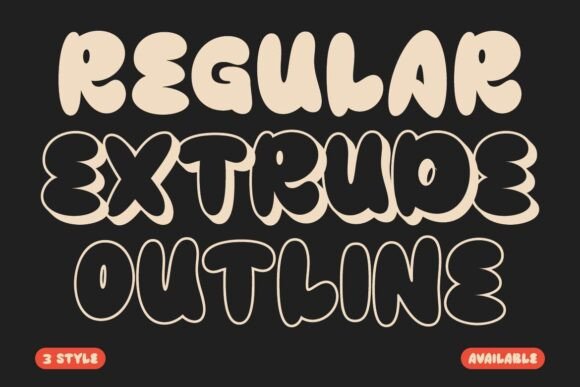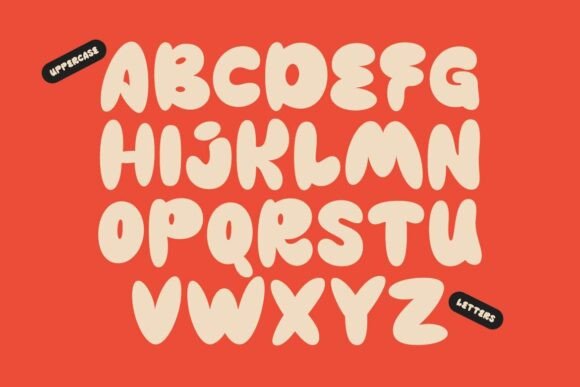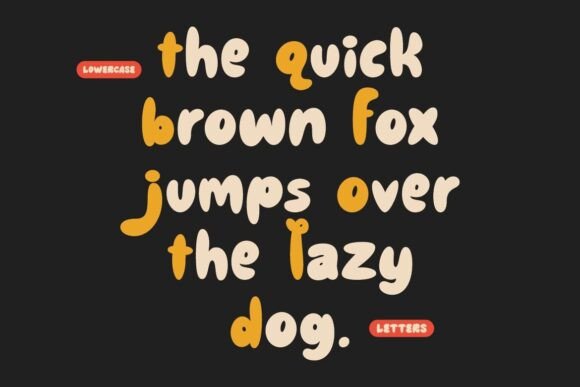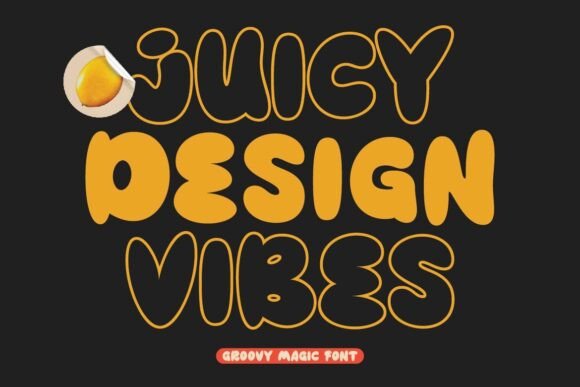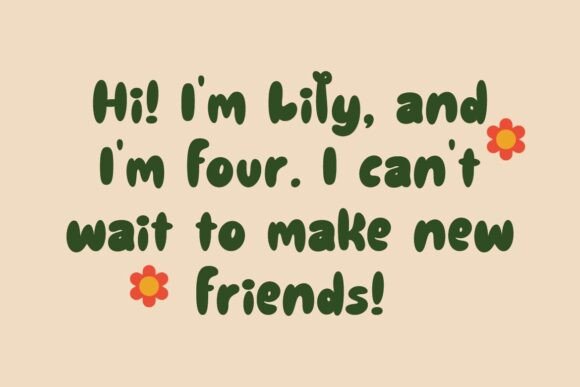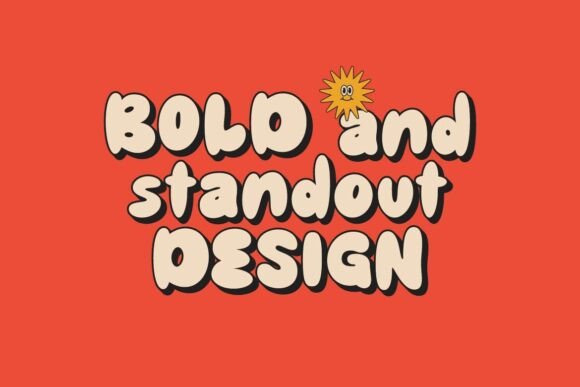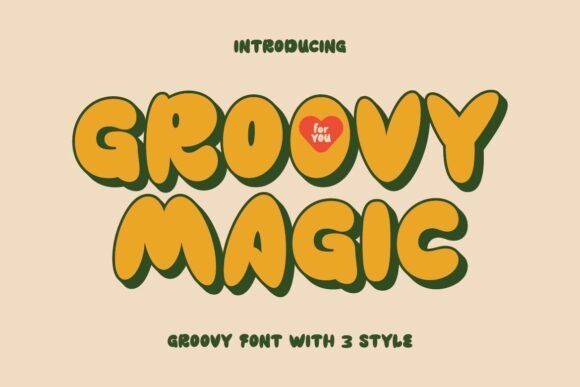
Introducing Groovy Magic Font: The Ultimate Retro-Themed Display Font
Are you looking for a font that can add a touch of nostalgia and charm to your designs? Look no further than Groovy Magic Font, a fun and retro-themed display font that’s perfect for creating eye-catching headlines, posters, and branding with a retro twist.
What is Groovy Magic Font?
Groovy Magic Font is a playful and nostalgic display font that captures the essence of a bygone era. With its funky and vintage design, this font is sure to bring a smile to your face and transport you back to a time of disco, bell-bottom jeans, and retro-themed everything.
Key Features of Groovy Magic Font
- Retro-themed design: Groovy Magic Font features a unique and playful design that’s reminiscent of the 1960s and 1970s.
- Multiple styles: This font comes in three different styles: Regular, Extrude, and Outline, giving you plenty of options for your designs.
- Perfect for headlines and posters: With its bold and eye-catching design, Groovy Magic Font is perfect for creating attention-grabbing headlines and posters.
Why Use Groovy Magic Font?
There are many reasons why you should consider using Groovy Magic Font in your designs. Here are just a few:
- Add a touch of nostalgia: Groovy Magic Font is the perfect way to add a touch of nostalgia and charm to your designs.
- Stand out from the crowd: With its unique and playful design, Groovy Magic Font is sure to make your designs stand out from the crowd.
- Perfect for retro-themed designs: If you’re creating a design with a retro theme, Groovy Magic Font is the perfect choice.
- Choose your style: Select the style of font you want to use: Regular, Extrude, or Outline.
Design Ideas Using Groovy Magic Font
Here are some design ideas that you can use Groovy Magic Font for:
- Retro-themed posters: Create eye-catching posters with a retro theme using Groovy Magic Font.
- Vintage-inspired branding: Use Groovy Magic Font to create a vintage-inspired brand identity for your business.
- Fun and playful headlines: Use Groovy Magic Font to create fun and playful headlines for your blog or website.
In conclusion, Groovy Magic Font is a fun and retro-themed display font that’s perfect for adding a touch of nostalgia and charm to your designs. With its playful and nostalgic design, multiple styles, and ease of use, this font is sure to become a favorite among designers and crafters. So why wait? Download Groovy Magic Font today and start creating eye-catching designs with a retro twist!